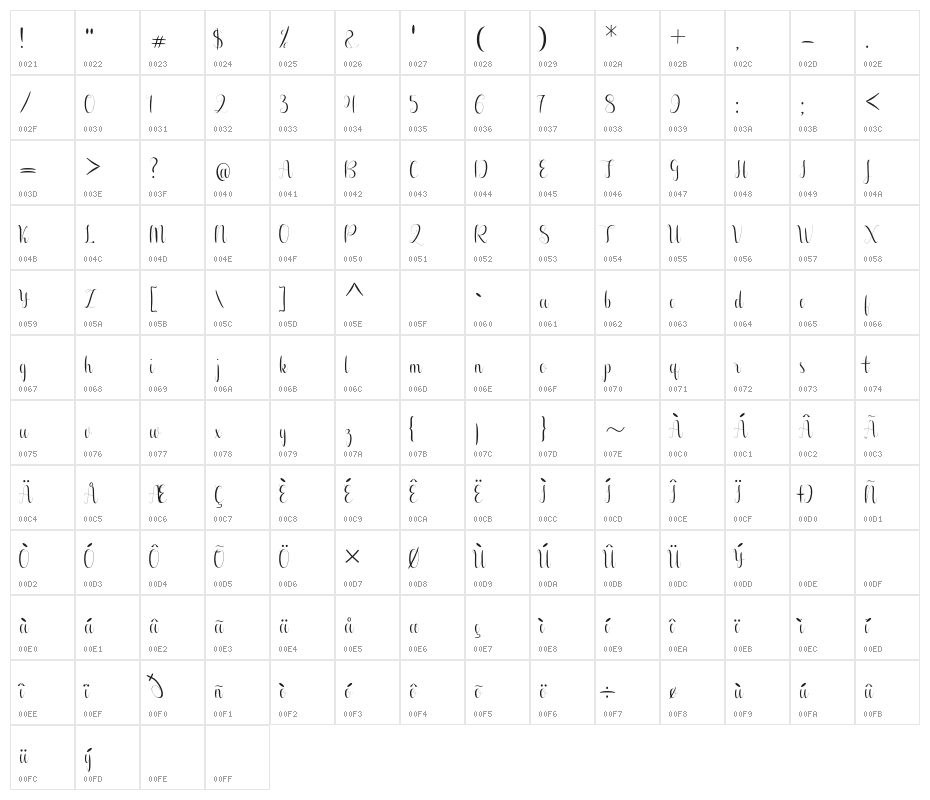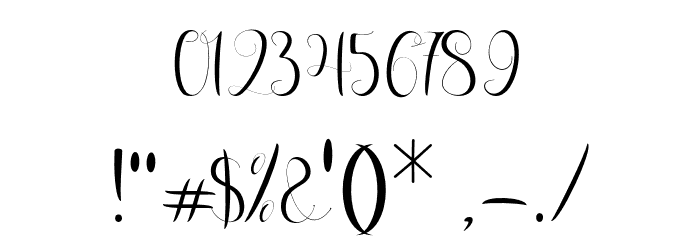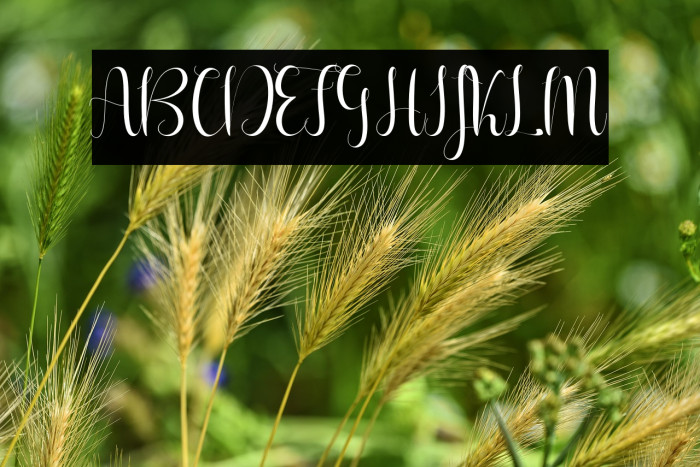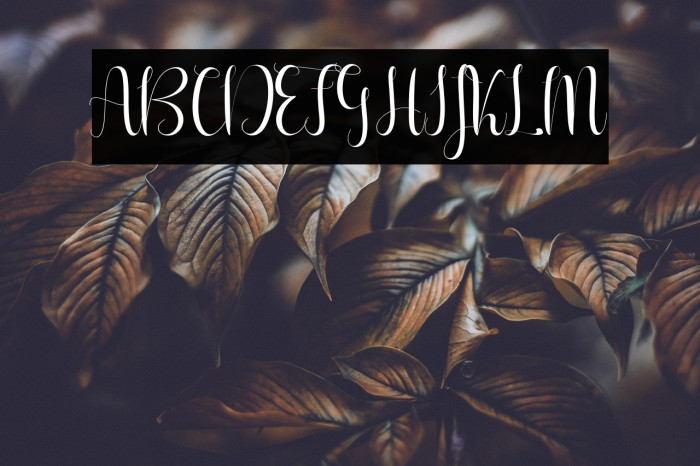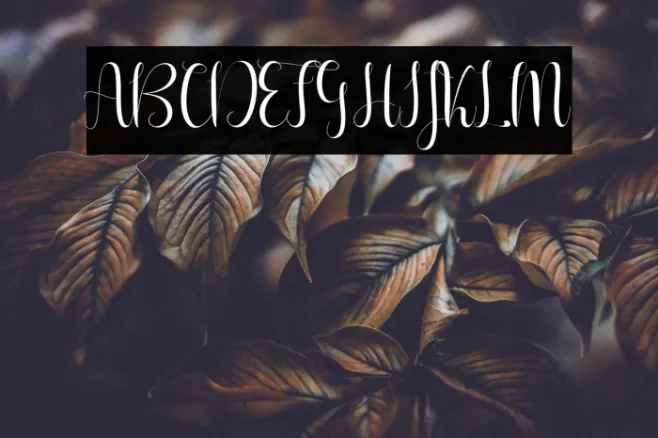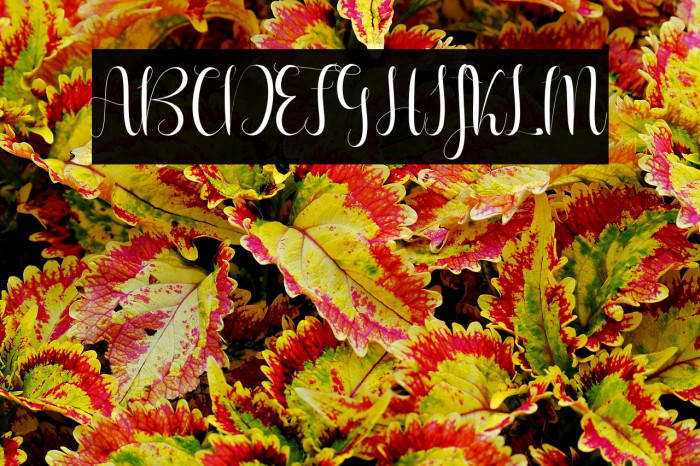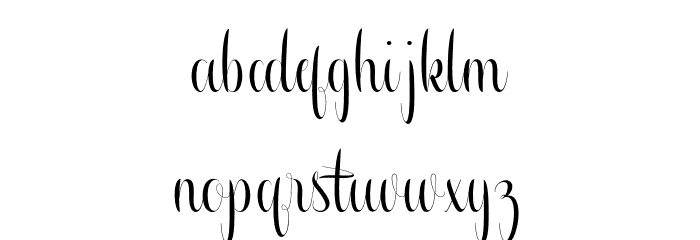
Aureliaregular Font
Aureliaregular Description
This font features an elegant and flowing script style, characterized by its graceful curves and delicate strokes. The uppercase letters exhibit a sophisticated flair with extended swashes, while the lowercase letters maintain a consistent fluidity that enhances readability. The numerals are crafted with the same attention to detail, offering a harmonious blend with the alphabet. Special characters are designed to complement the overall aesthetic, making this font suitable for a variety of decorative purposes. Its artistic nature makes it ideal for projects that require a touch of elegance and refinement.
| Proposed Projects | Ideal for wedding invitations, greeting cards, branding, and elegant packaging designs. |